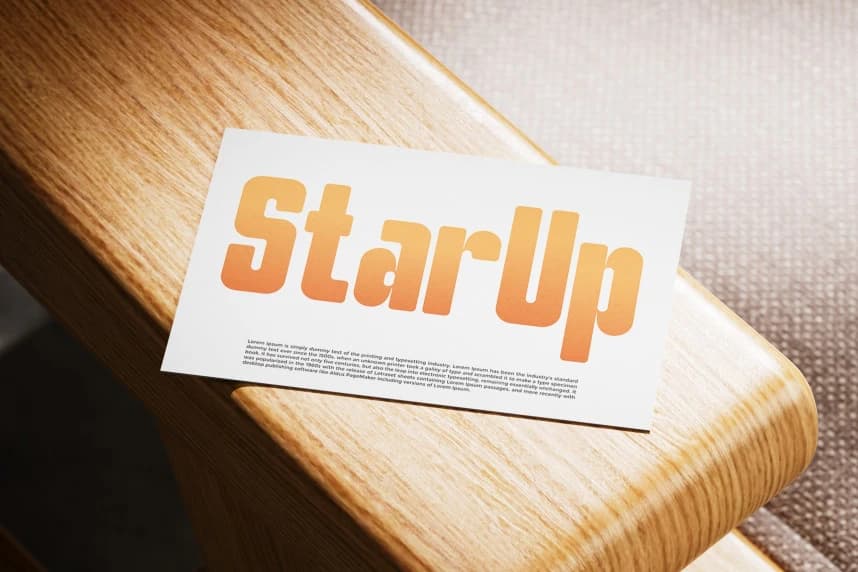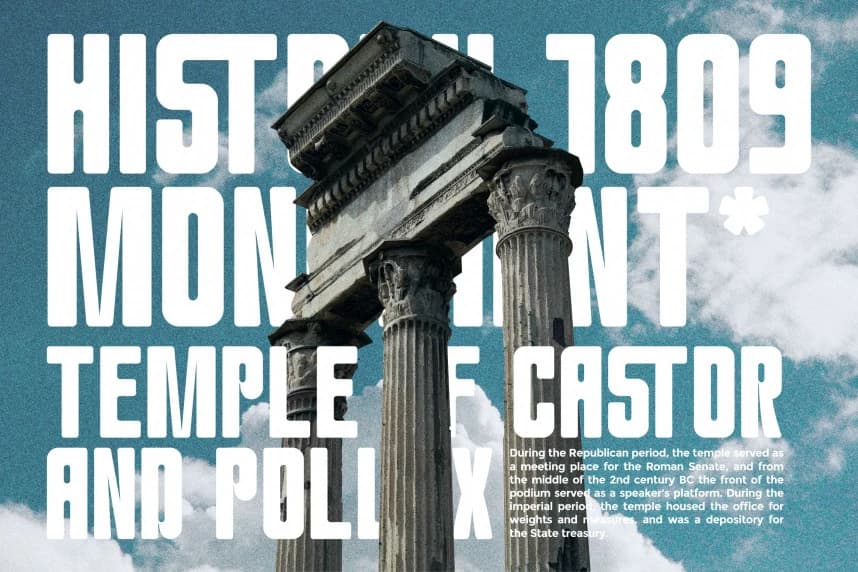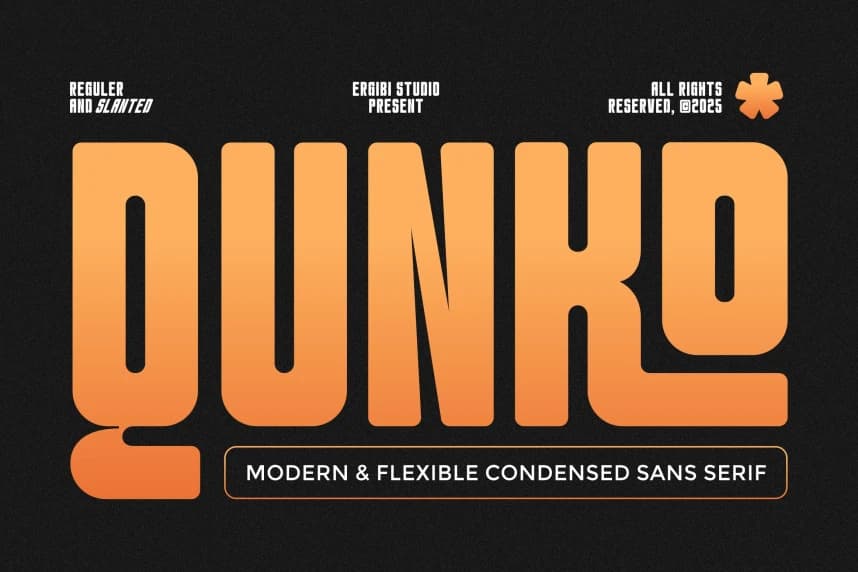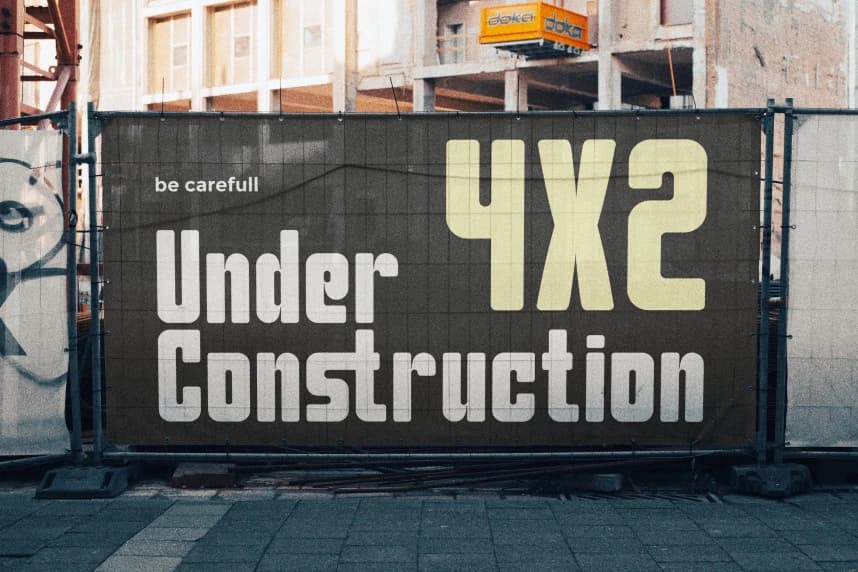
Qunko Font is a modern, flexible condensed sans serif typeface designed to bring clarity, style, and efficiency to any layout. Its clean lines and compact letterforms make it perfect for projects that demand strong visual impact without sacrificing readability.